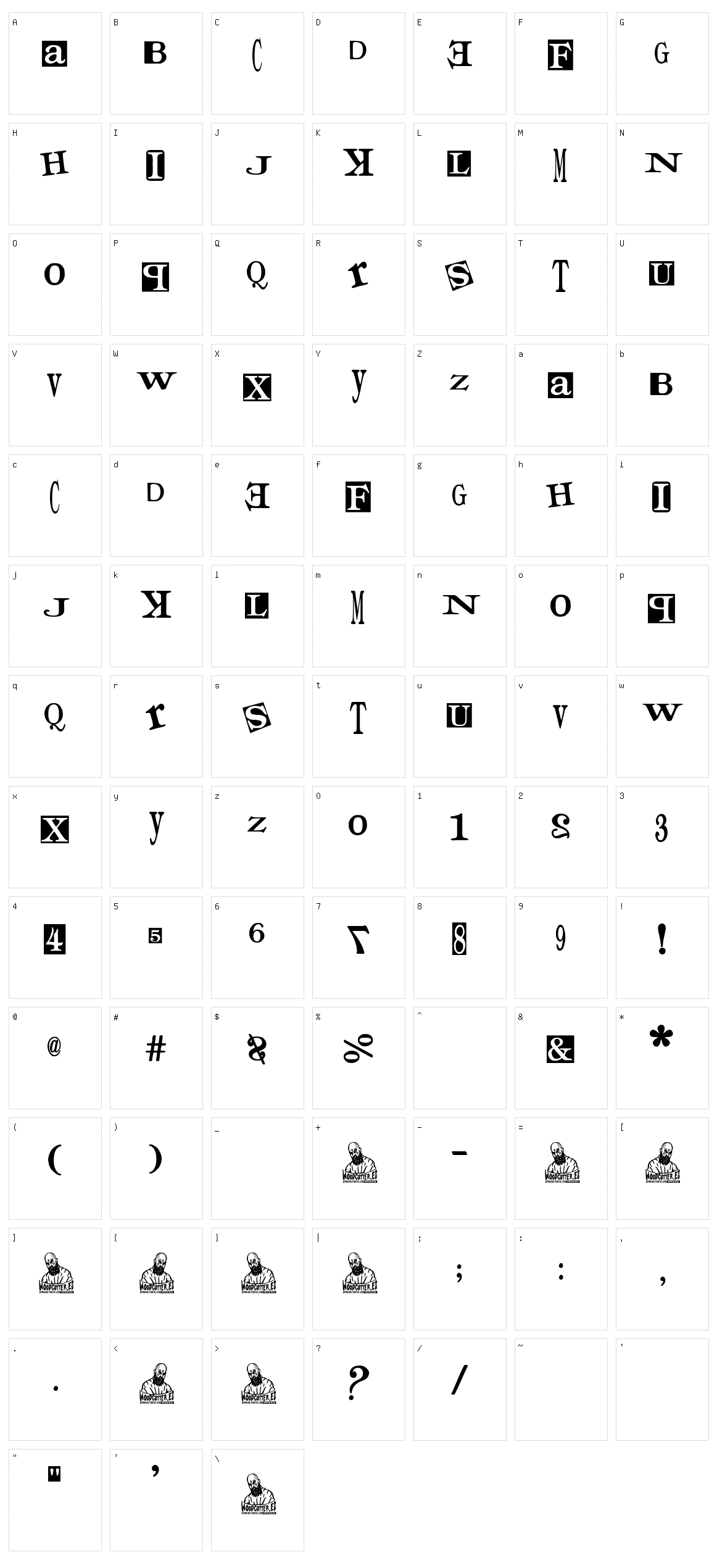
The free font Times for Punks is carefully designed by Woodcutter, showcasing a thoughtful balance of creativity and usability and falls under the Distorted font style. When you download the ZIP file, it contains only 52.12 KB of font files, making it lightweight and quick to download. Please review the license details below to understand permitted usage and distribution rights. If license information is not available, we recommend using this font for personal projects only or contacting the author directly for commercial usage permissions.